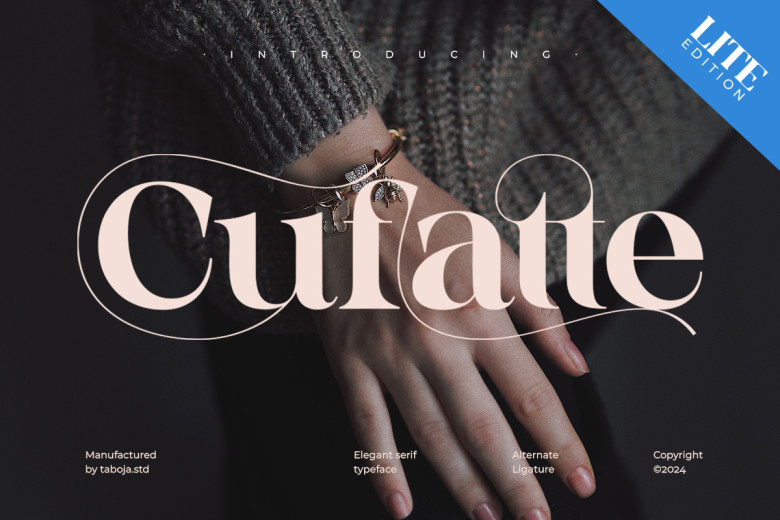
Cufatte Font
Cufatte is an exquisite serif typeface that explores timeless elegance with our latest font, featuring delicate yet sophisticated swashes. Each letter is expertly designed to add subtle accents of elegance that add a hint of timeless beauty to your designs. Perfect for creating nostalgic yet elegant looks such as packaging, posters and logos; Cufatte will wow people with its retro charm and uniqueness.
Cufatte Serif Font